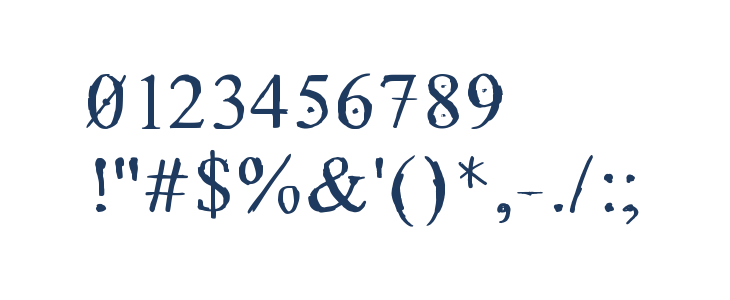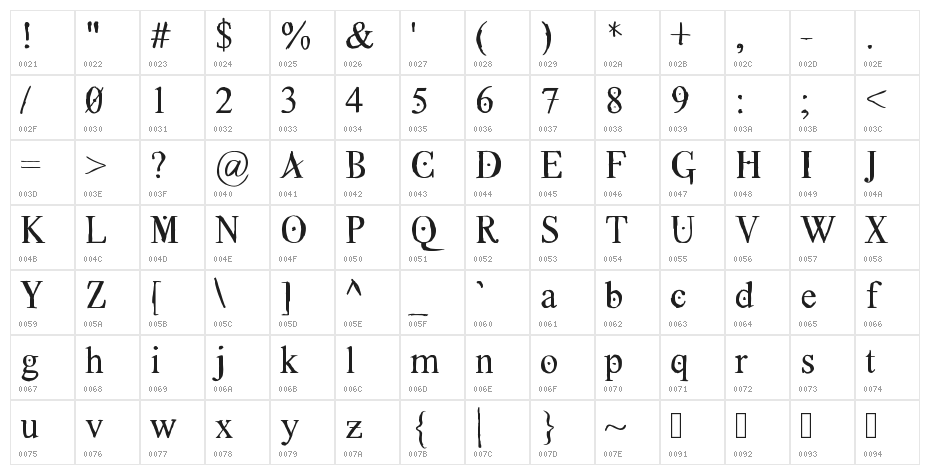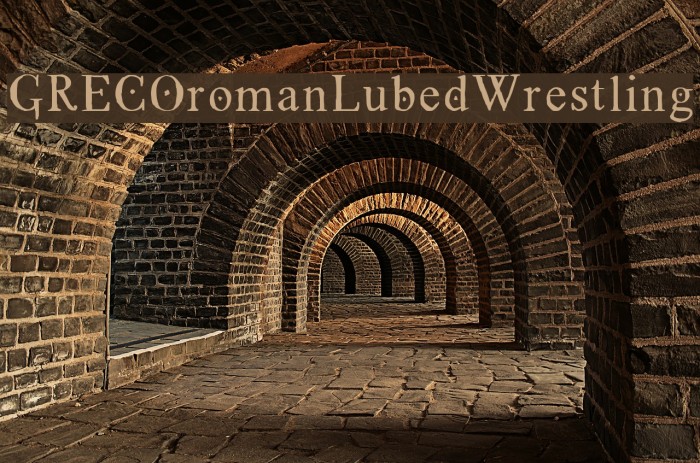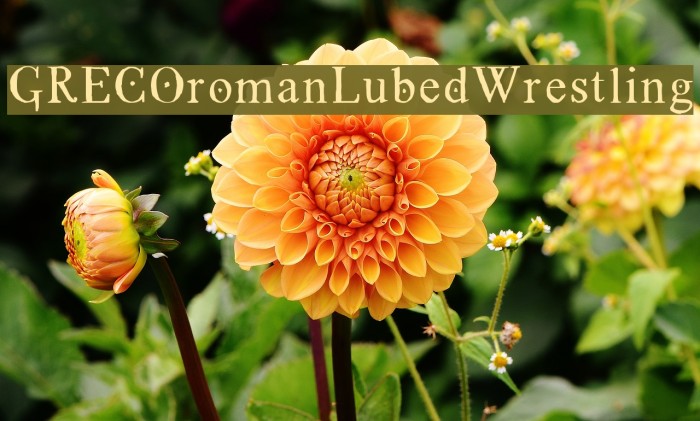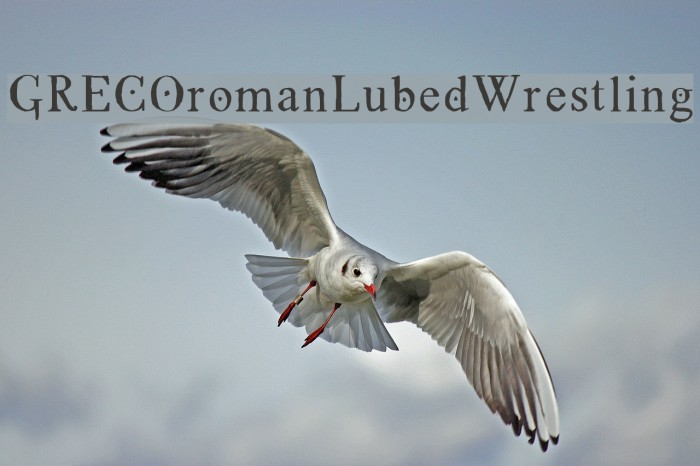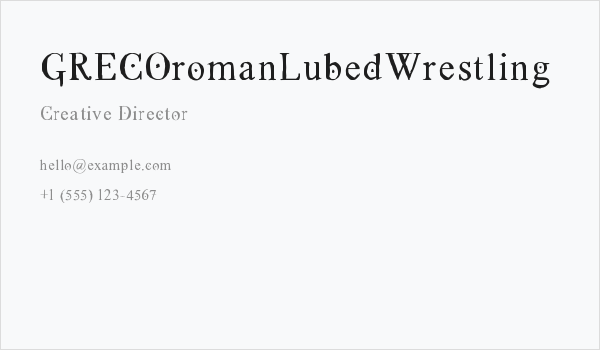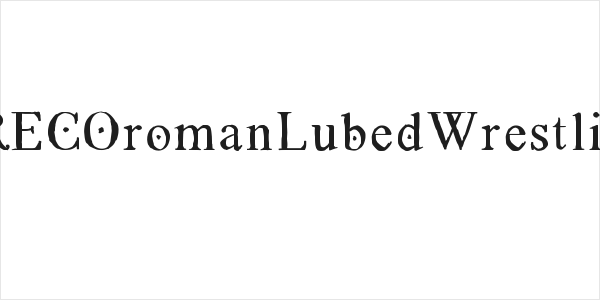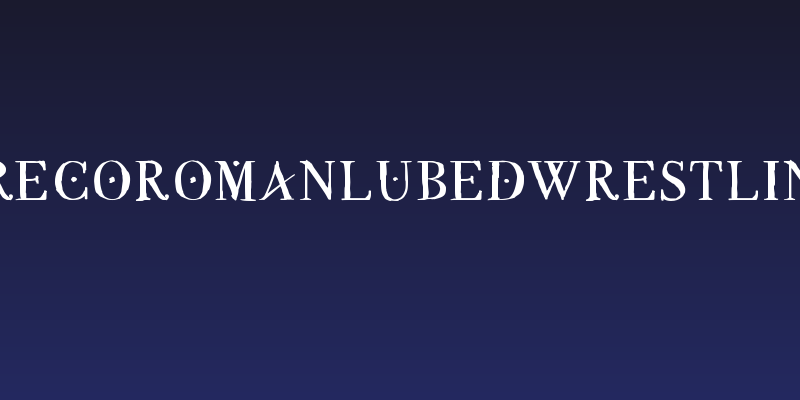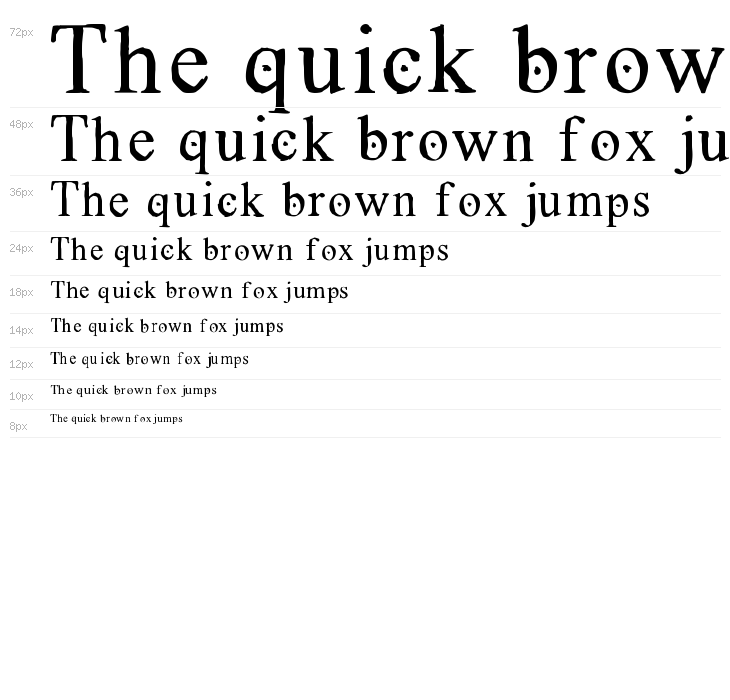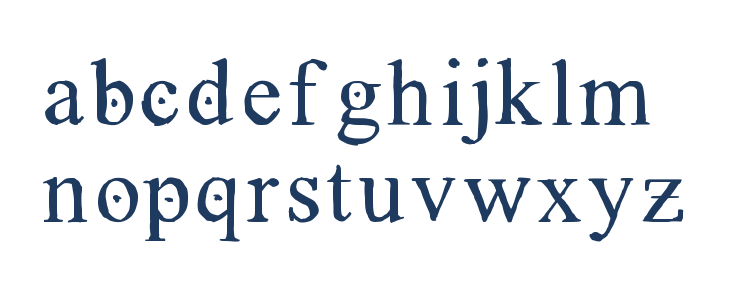
GRECOromanLubedWrestling Font
GRECOromanLubedWrestling Description
This font exudes a classic and slightly distressed appearance, reminiscent of ancient scripts with a modern twist. The uppercase letters are bold and commanding, with a slight unevenness that adds character and a hand-crafted feel. The lowercase letters maintain this style, offering a consistent yet unique look across the board. Numbers and special characters follow suit, providing a cohesive aesthetic throughout. The strokes are varied, with some letters featuring thicker lines and others more delicate, creating a medium contrast that enhances readability while maintaining an artistic flair. This font is perfect for projects that require a touch of historical elegance combined with a contemporary edge.
Overall StyleVintage
Use CaseHeadlines, Logos, Artistic Posters
Proposed ProjectsIdeal for vintage-themed designs, historical publications, artistic posters, and branding that requires a touch of elegance.